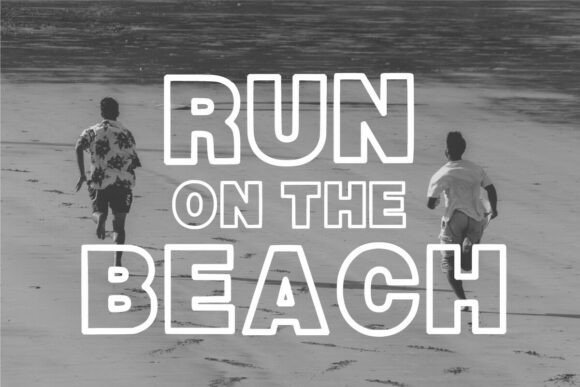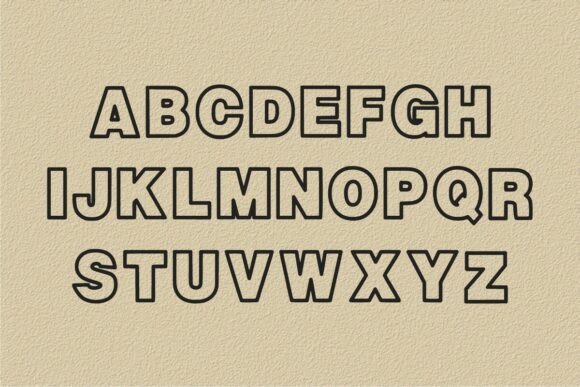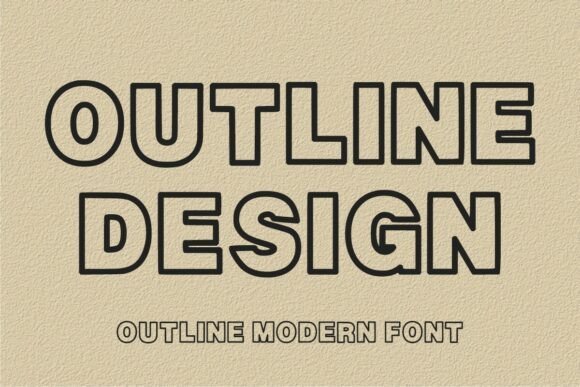
Introduction to Outline Design Font
Outline Design, an extraordinarily versatile sans serif font defined by its outline typeface.
📌 Product Name Outline Design Font
👤 Author Infinity art Studio
Its readability is second to none, and it imbues an undeniable sense of approachability Perfectly suited for crafting projects, digital design work, grabbing attention in presentations, or adding a personal touch to greeting cards.
Key Features of Outline Design Font
Why Choose Outline Design Font?
Outline Design Font offers exceptional quality and versatility, making it a valuable addition to your design toolkit. Whether you’re creating for personal projects or commercial use, Outline Design Font delivers professional results.